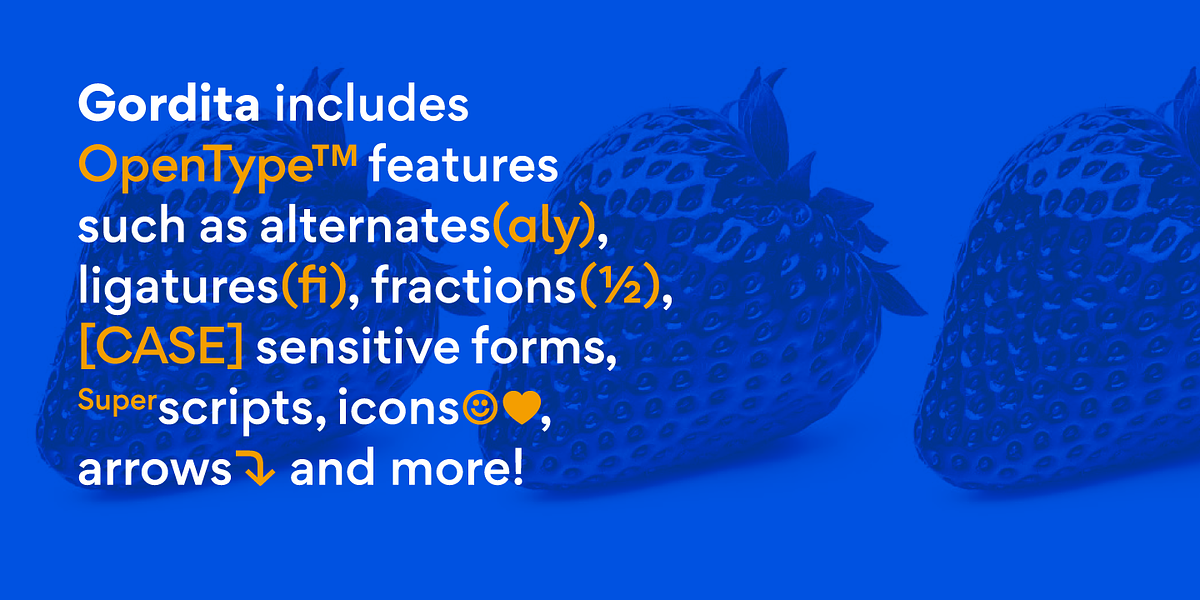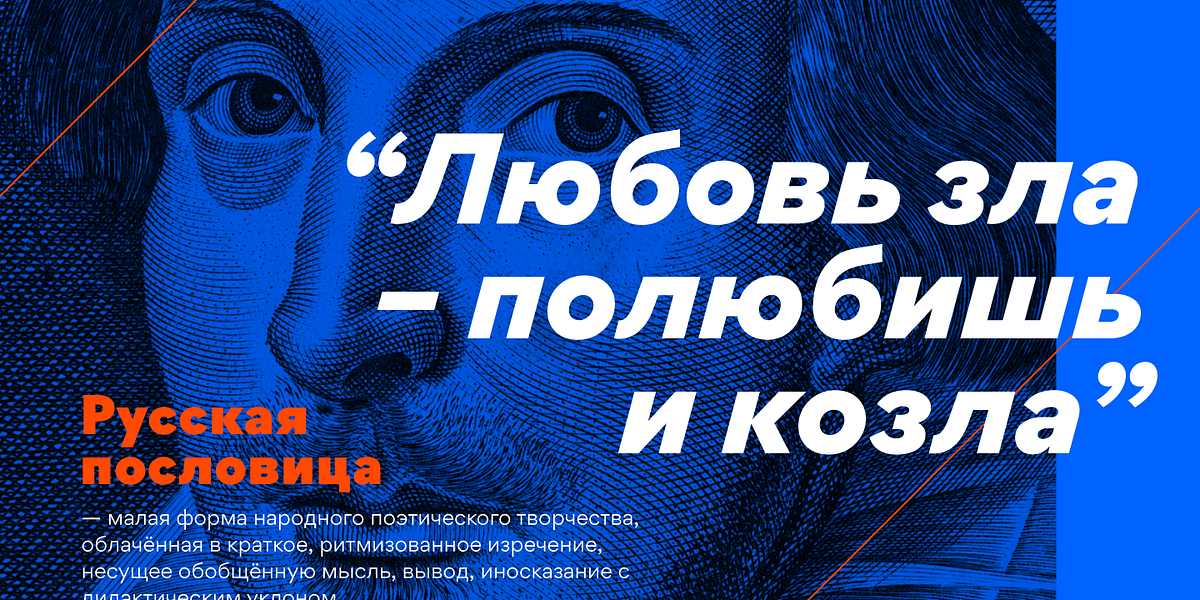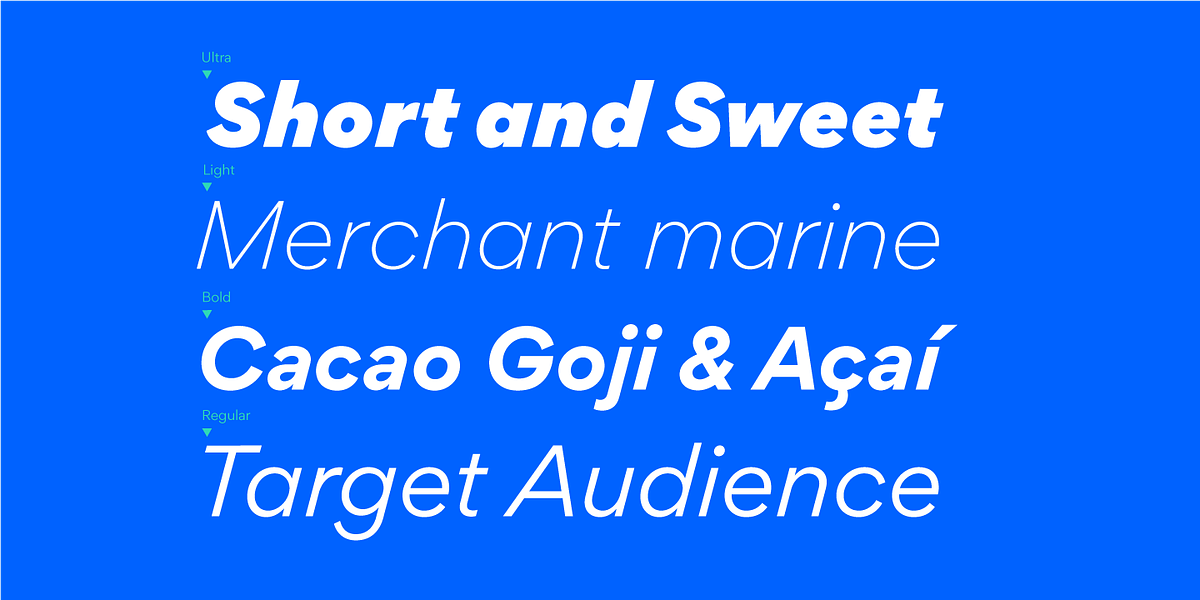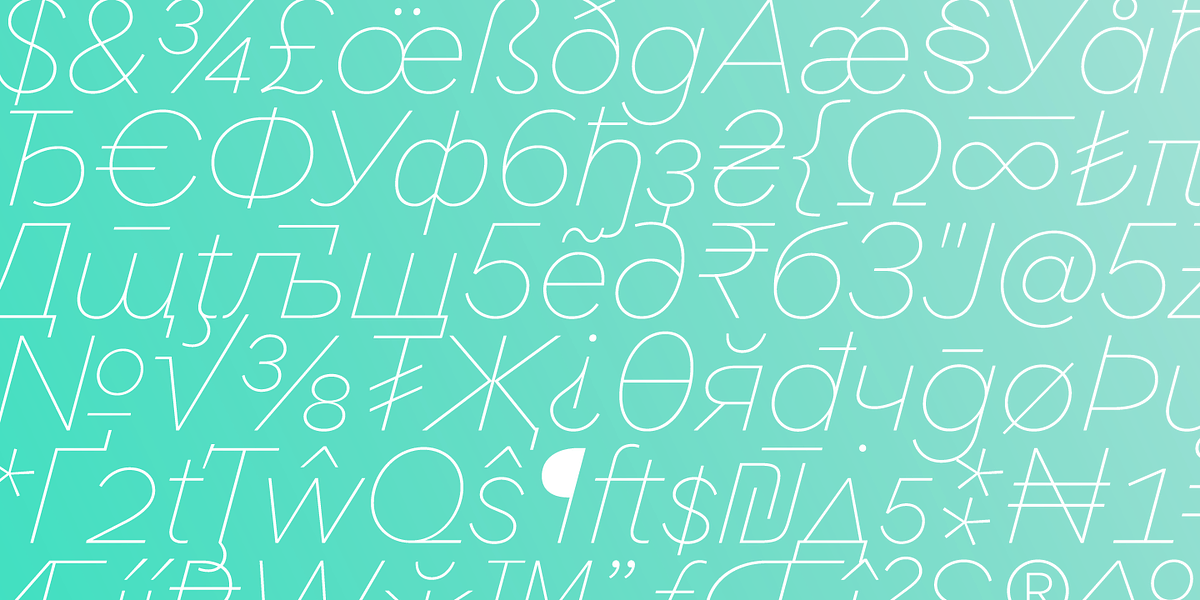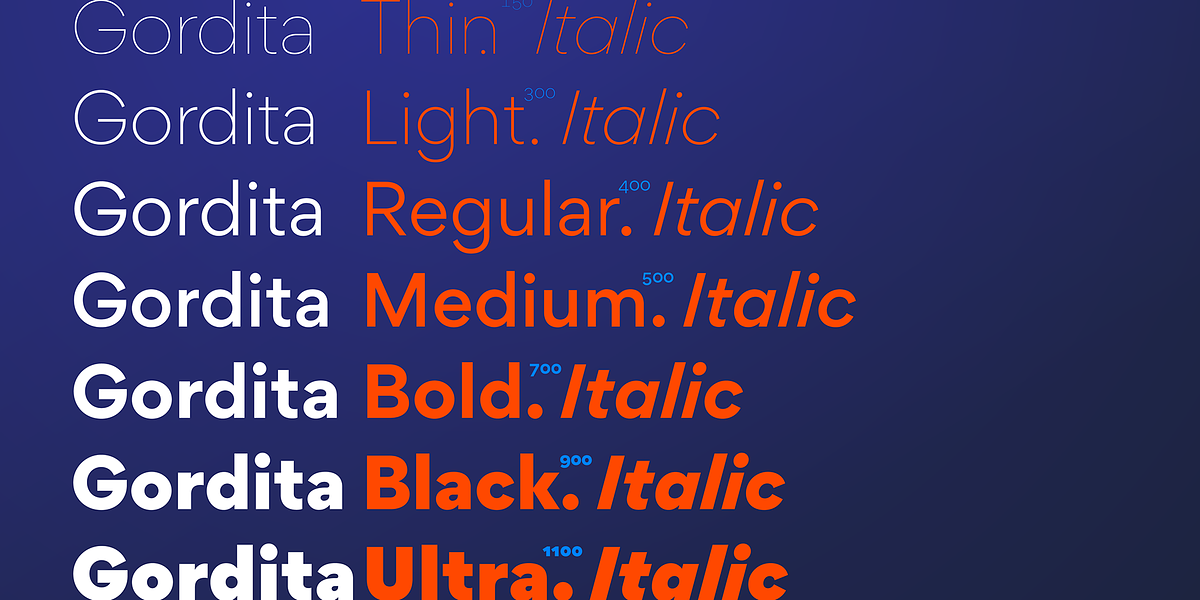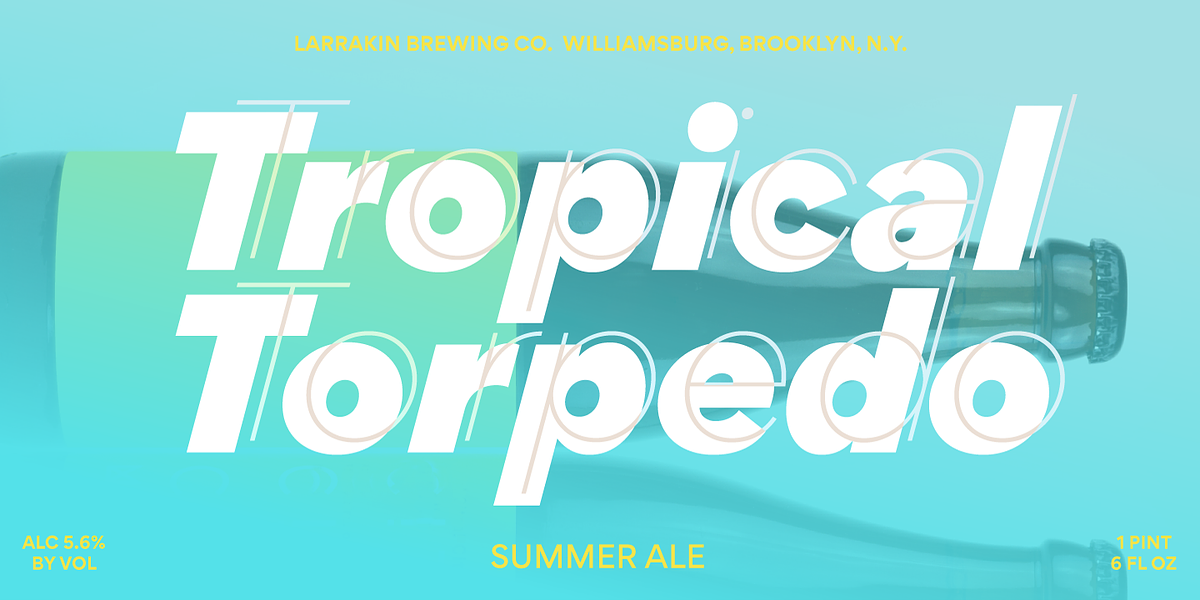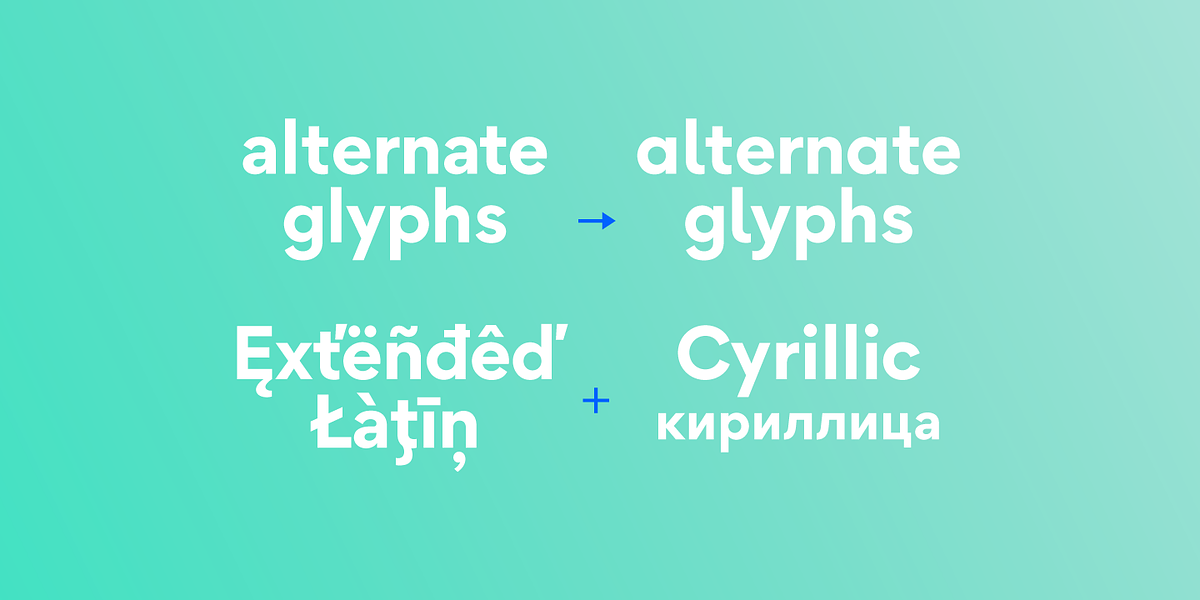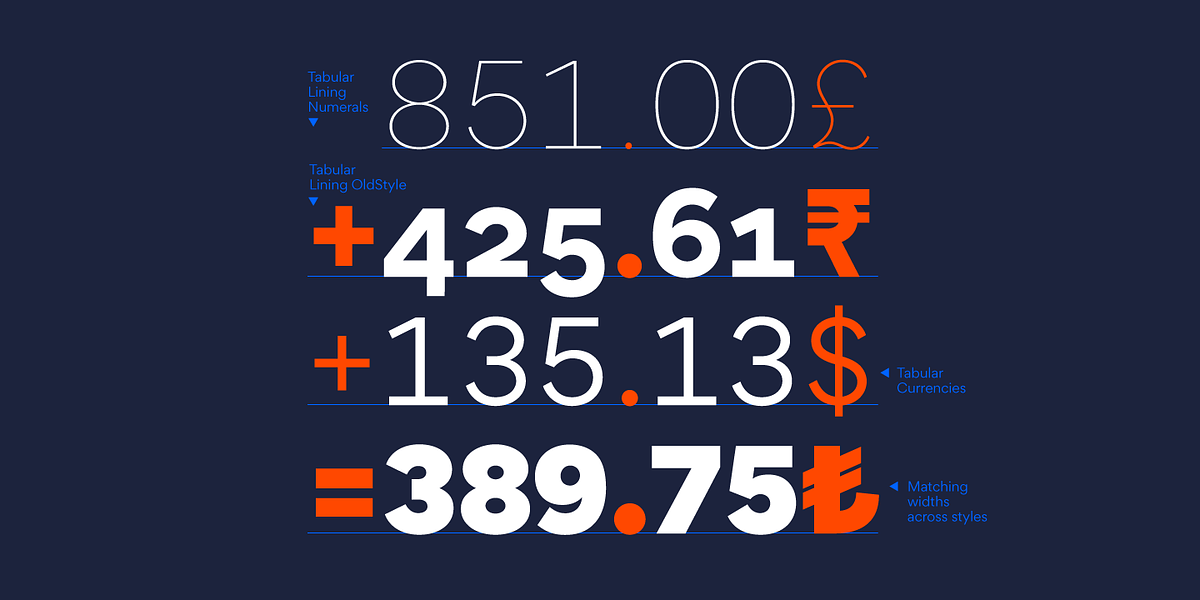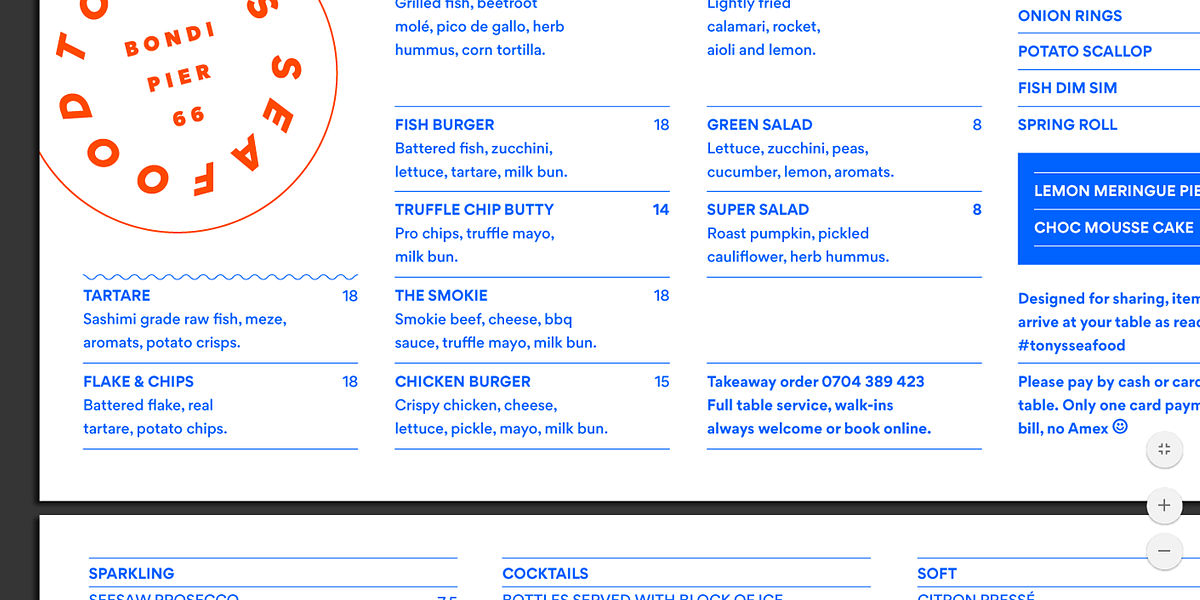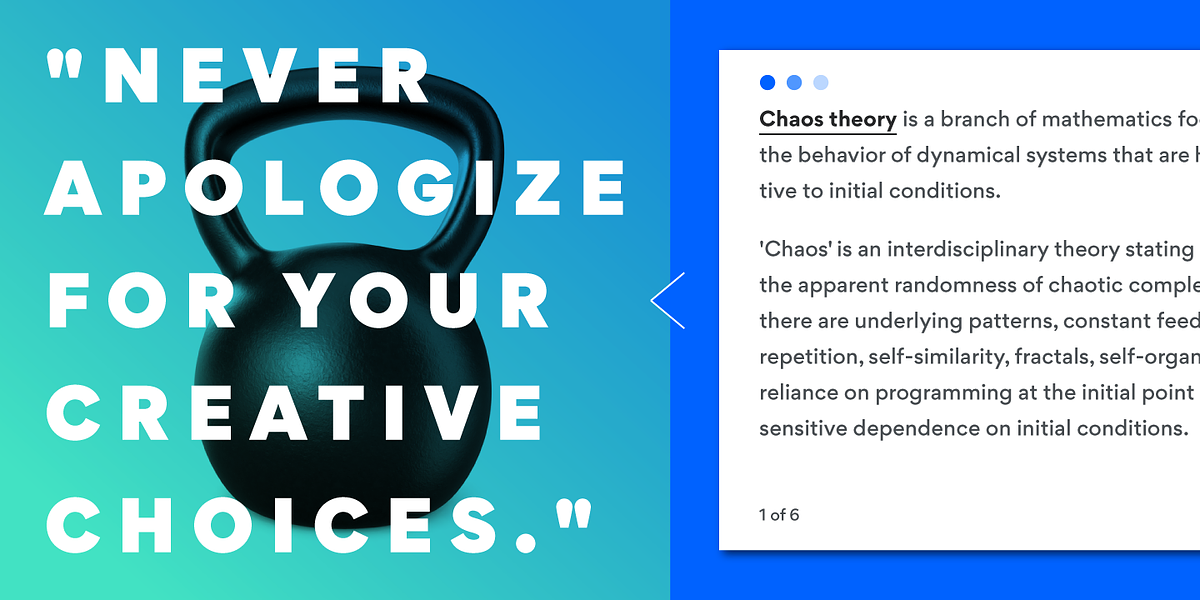
Gordita
Gordita is a modern geometric sans-serif typeface designed by Thomas Gillett. It draws inspiration from classic fonts like Futura and Gotham, incorporating their structural harmony and geometric foundations. Gordita features optically balanced forms with slightly tapered joints and ink traps in heavier weights for enhanced legibility. The font family includes seven weights with matching italics, offering versatility for various applications. Gordita supports over 200 languages and comes equipped with OpenType features such as alternate glyphs, fractions, small figures, arrows, symbols, and old style/tabular figures.